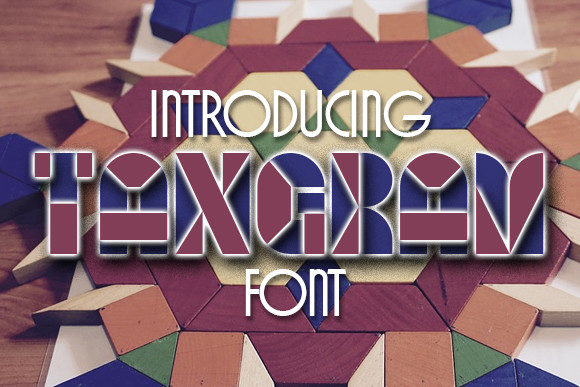
Behold, Tangram Font - A Journey into the Realm of Abstract Beauty
In the vast expanse of digital creativity, typography reigns supreme, shaping the visual language of our online world. Amidst a myriad of font families, Tangram Font emerges as a captivating jewel, a dual-layered decorative font that ignites imagination and transforms words into art.
Tangram Font is not merely a collection of characters; it is an invitation to embark on a visual odyssey, where abstract shapes dance in harmonious disarray. Each letterform is a unique masterpiece, meticulously crafted to celebrate the eclectic beauty of geometric forms. The result is a font that transcends the boundaries of conventional typography, captivating the senses and leaving an indelible mark on the digital canvas.
As an artist, you understand the power of visual expression. Tangram Font is your palette, a kaleidoscope of possibilities that empowers you to paint your ideas with unparalleled flair. Imagine the impact of your logos, the allure of your posters, the intrigue of your social media graphics, all adorned with the mesmerizing allure of Tangram Font.
This font is more than just a tool; it's an extension of your creative spirit, a conduit for your artistic vision. Its versatility knows no bounds, adapting seamlessly to a symphony of design styles. From sleek and minimalist to playful and whimsical, Tangram Font dances gracefully across the spectrum, bringing life to your every creation.
Discover the infinite possibilities that await you within the intricate layers of Tangram Font. Let your imagination soar as you explore the endless combinations, blending and matching styles to create visual masterpieces that resonate with your unique artistic voice.
Dare to be different, to break free from the mundane and embrace the extraordinary. Tangram Font is your catalyst, igniting a creative revolution that will leave your audience spellbound. As they gaze upon your creations, they will be captivated by the sheer brilliance of your artistic expression.